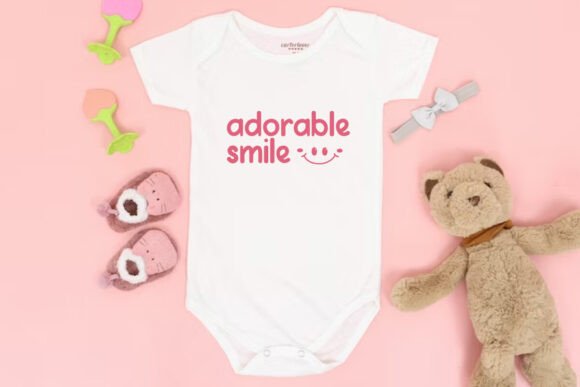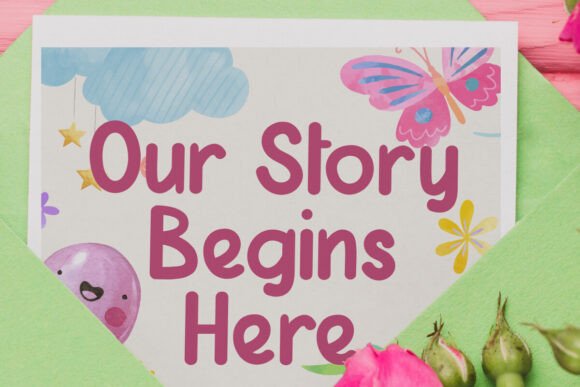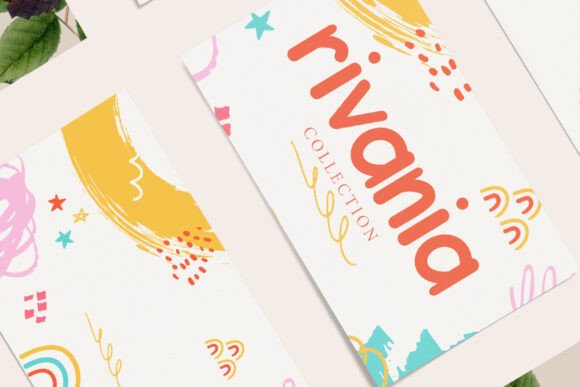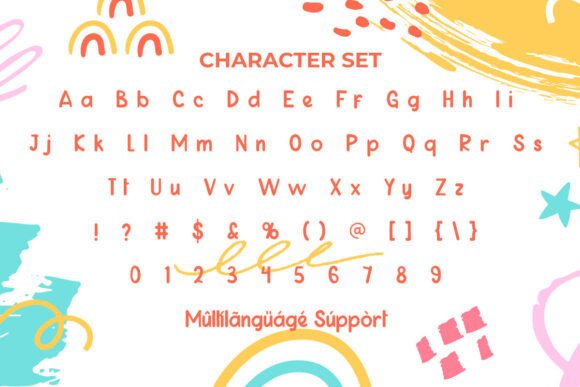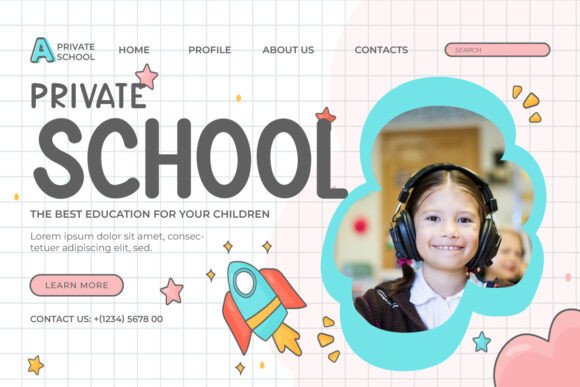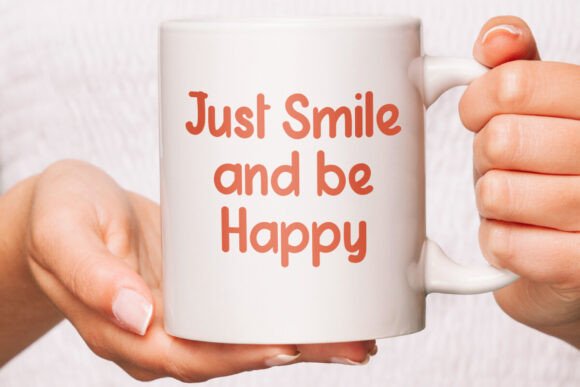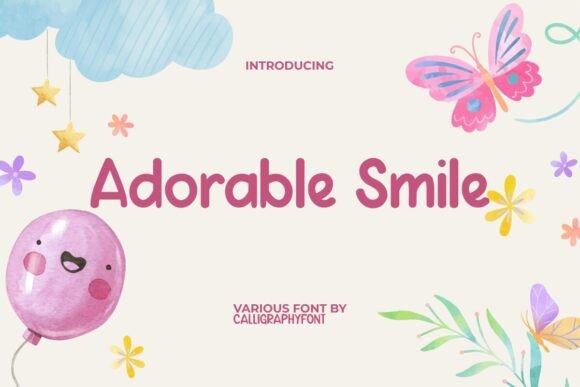
Introducing Adorable Smile Font: The Perfect Choice for Your Design Needs
Are you looking for a font that can add a touch of happiness and playfulness to your designs? Look no further than Adorable Smile Font, a cheerful display font that is sure to bring a smile to your customers’ faces. Inspired by the joy and innocence of children’s happiness, this font combines softness and playfulness in a unique way that will make your designs stand out.
What Makes Adorable Smile Font So Special?
Adorable Smile Font is an original hand-drawn fun typeface that features stylized letters with rounded corners, giving it an adorable shape that is perfect for a wide range of design applications. Whether you’re working on a project for a baby fashion brand, a cake shop, or a summer camp, this font is sure to add a touch of whimsy and fun to your design.
Adorable Smile Font is incredibly versatile and can be used for a wide range of design projects, including:
- All kinds of advertising purposes
- Blogs
- Business cards
- Cover design
- Flyers
- Greeting card design
- Headers
- Headlines
- Labels
- Logos
- Menu brochures
- Mockup templates
- Posters
- Product packaging
- Quotes
- Screen prints
- Signs
- Stationery
- Stickers
- Titles
- Watermarks
- Websites
Perfect for a Variety of Industries
Adorable Smile Font is ideal for businesses in a variety of industries, including:
- Baby fashion
- Cake shops
- Event organizers
- Fashion
- Film
- Food and drinks brands
- Graphic design
- Homeware
- Kindergartens
- Movie
- Photography
- Printing
- Publishing
- Restaurants
- Schools
- Storybook writers
- Summer camps
- Toy stores
Why Choose Adorable Smile Font?
There are many reasons why Adorable Smile Font is the perfect choice for your design needs. Here are just a few:
- Unique and playful design: Adorable Smile Font features a unique and playful design that is sure to add a touch of happiness to your designs.
- Versatile: This font can be used for a wide range of design projects, from advertising and branding to packaging and website design.
- Easy to read: Despite its playful design, Adorable Smile Font is easy to read, making it perfect for use in body text as well as headlines.
- High-quality: Adorable Smile Font is a high-quality font that is designed to look great on any device or platform.